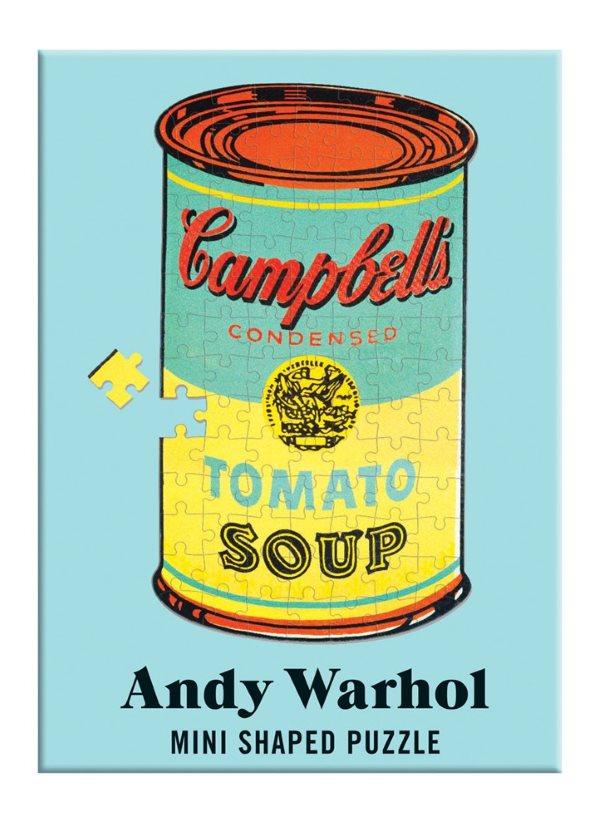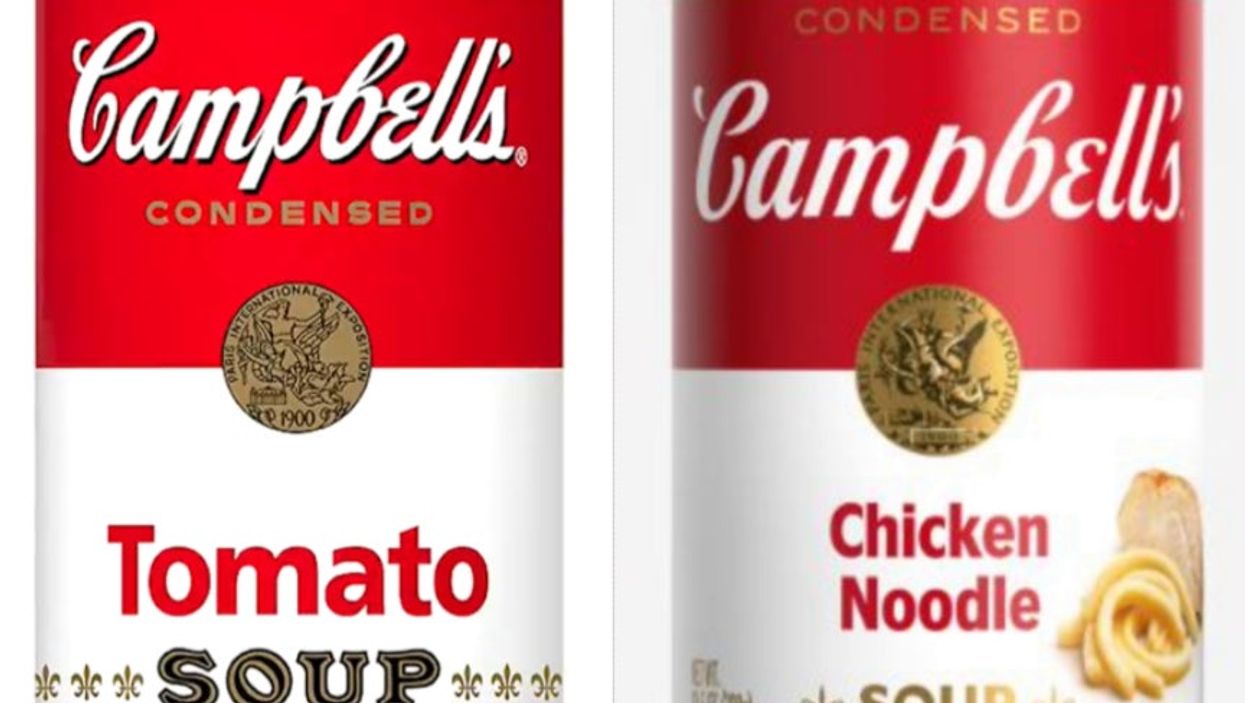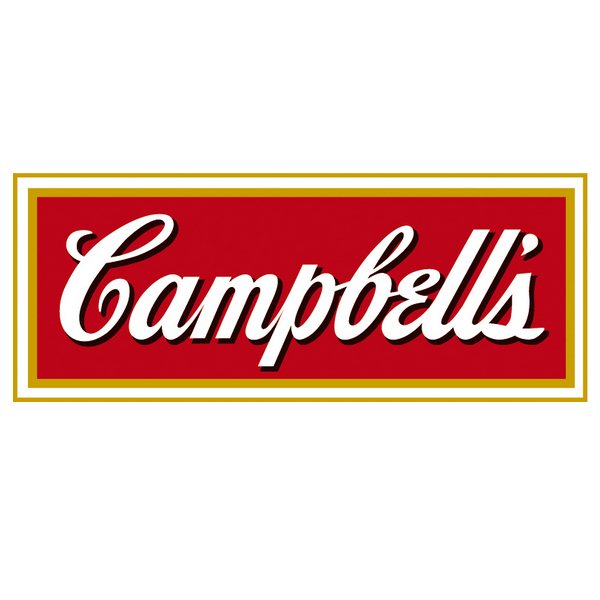
Campbell Soup Font - It isn't a font and it wasn't warhol's idea, it's lettering that has been around for a century as part of campbell's packaging. Not a font but hand engraved and first appeared around 1900. The campbell script for instance is.